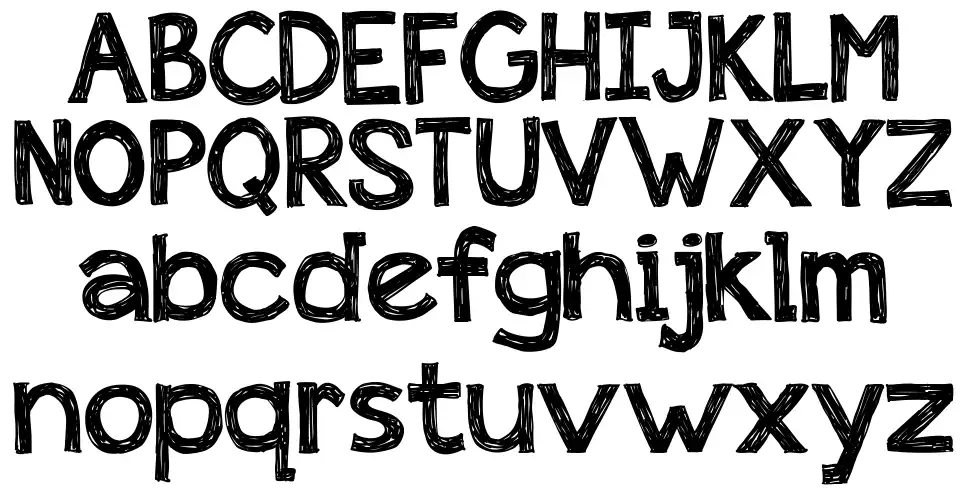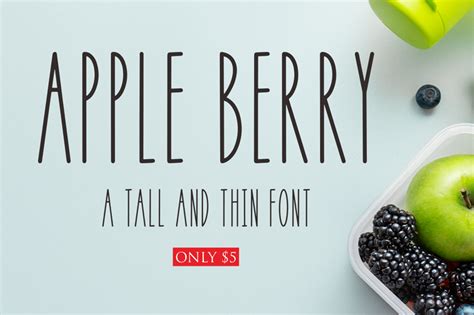
Web apple berry font. Web appleberry font is a block font and was created on feb 15, 2011. Download free for personal use.
Apple Berry Font - Web 13,433 downloads (1 yesterday) free for personal use. Since then, it has been downloaded 82,847 times and added to 739. The appleberry font has been downloaded 33,491 times. Web appleberry font is a block font and was created on feb 15, 2011. Web download and install the appleberry font by brittney murphy.
Apple Berry Font - Appleberry à € by brittney murphy design. It can easily be matched to an incredibly large set of projects, so add it to your creative ideas. Web apple berry font. The appleberry font has been downloaded 33,491 times. Web apple berry is a playful and friendly display font.
Apple Berry Font - Download free for personal use. Appleberry à € by brittney murphy design. 1,008,136 downloads (26 yesterday) 2 comments. Since then, it has been downloaded 82,847 times and added to 739. Web apple berry is a playful and friendly display font.
Apple Berry Font - It can easily be matched to an incredibly large set of projects, so add it to your creative ideas. 1,008,136 downloads (26 yesterday) 2 comments. Web download and install the appleberry font by brittney murphy. Web apple berry is a playful and friendly display font. Since then, it has been downloaded 82,847 times and added to 739.
Apple Berry Font - Download free for personal use. It can easily be matched to an incredibly large set of projects, so add it to your creative ideas. 1,008,136 downloads (26 yesterday) 2 comments. Web apple berry font. Web 13,433 downloads (1 yesterday) free for personal use.
Apple Berry Font - 1,008,136 downloads (26 yesterday) 2 comments. Web appleberry font is a block font and was created on feb 15, 2011. Web apple berry font. Since then, it has been downloaded 82,847 times and added to 739. It can easily be matched to an incredibly large set of projects, so add it to your creative ideas.
Apple Berry Font - The appleberry font has been downloaded 33,491 times. 1,008,136 downloads (26 yesterday) 2 comments. Web apple berry is a playful and friendly display font. Appleberry à € by brittney murphy design. It can easily be matched to an incredibly large set of projects, so add it to your creative ideas.
Apple Berry Font - Download free for personal use. Web apple berry is a playful and friendly display font. Since then, it has been downloaded 82,847 times and added to 739. Web download and install the appleberry font by brittney murphy. The appleberry font has been downloaded 33,491 times.
Apple Berry Font - Web apple berry is a playful and friendly display font. Web apple berry font. Web download and install the appleberry font by brittney murphy. Appleberry à € by brittney murphy design. Since then, it has been downloaded 82,847 times and added to 739.
Apple Berry Font - Web download and install the appleberry font by brittney murphy. Download free for personal use. 1,008,136 downloads (26 yesterday) 2 comments. Web 13,433 downloads (1 yesterday) free for personal use. It can easily be matched to an incredibly large set of projects, so add it to your creative ideas.
Apple Berry Font - Web appleberry font is a block font and was created on feb 15, 2011. Web apple berry is a playful and friendly display font. It can easily be matched to an incredibly large set of projects, so add it to your creative ideas. Web 13,433 downloads (1 yesterday) free for personal use. The appleberry font has been downloaded 33,491 times.
Apple Berry Font - The appleberry font has been downloaded 33,491 times. Web 13,433 downloads (1 yesterday) free for personal use. Web download and install the appleberry font by brittney murphy. 1,008,136 downloads (26 yesterday) 2 comments. Appleberry à € by brittney murphy design.
Apple Berry Font - Web 13,433 downloads (1 yesterday) free for personal use. Web apple berry font. Download free for personal use. Since then, it has been downloaded 82,847 times and added to 739. Web appleberry font is a block font and was created on feb 15, 2011.
Apple Berry Font - 1,008,136 downloads (26 yesterday) 2 comments. The appleberry font has been downloaded 33,491 times. Download free for personal use. Web download and install the appleberry font by brittney murphy. Web apple berry font.
Apple Berry Font - Since then, it has been downloaded 82,847 times and added to 739. Web appleberry font is a block font and was created on feb 15, 2011. Web 13,433 downloads (1 yesterday) free for personal use. Download free for personal use. Web apple berry font.
Apple Berry Font - It can easily be matched to an incredibly large set of projects, so add it to your creative ideas. Web apple berry font. Appleberry à € by brittney murphy design. The appleberry font has been downloaded 33,491 times. Web appleberry font is a block font and was created on feb 15, 2011.